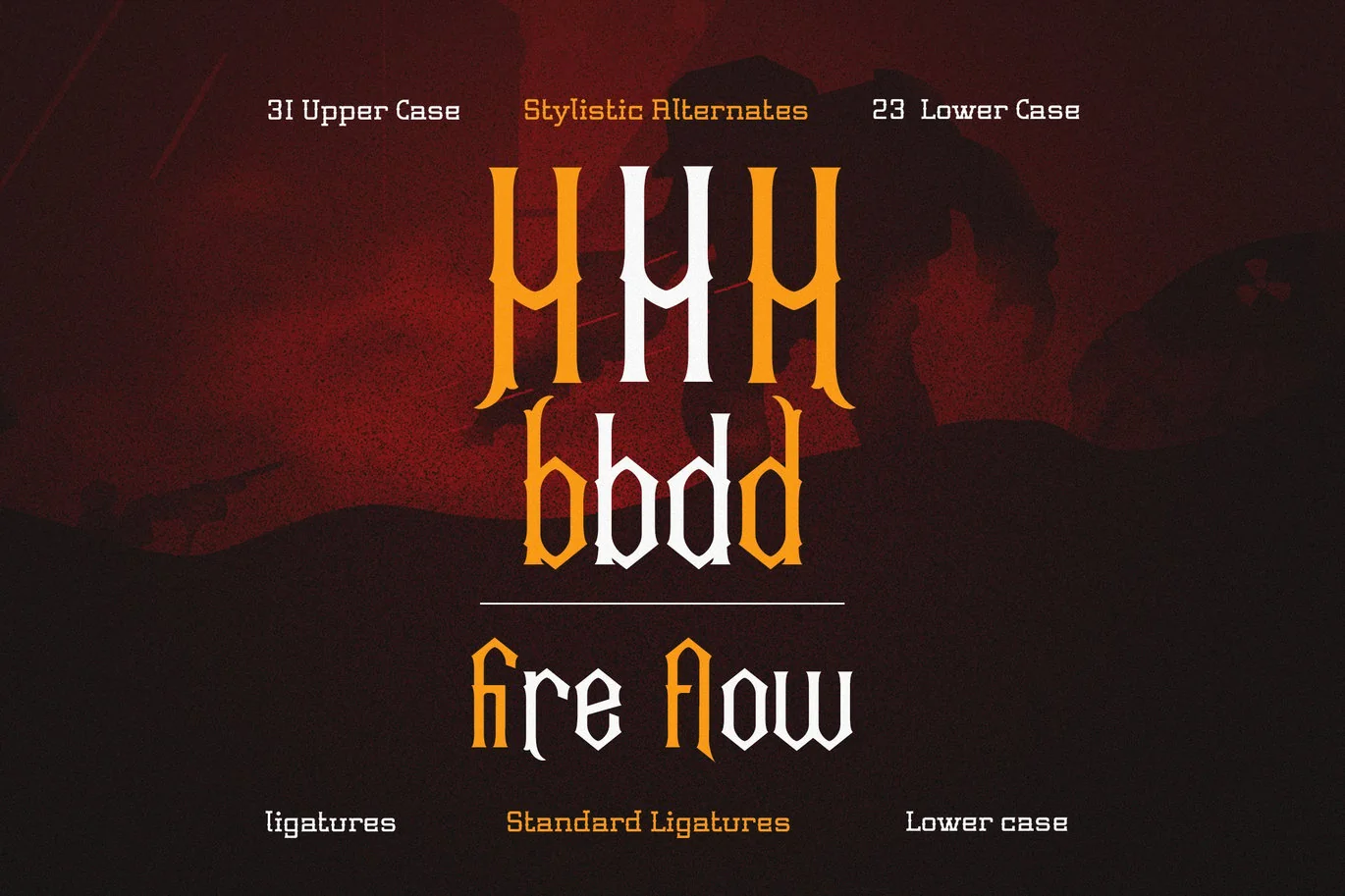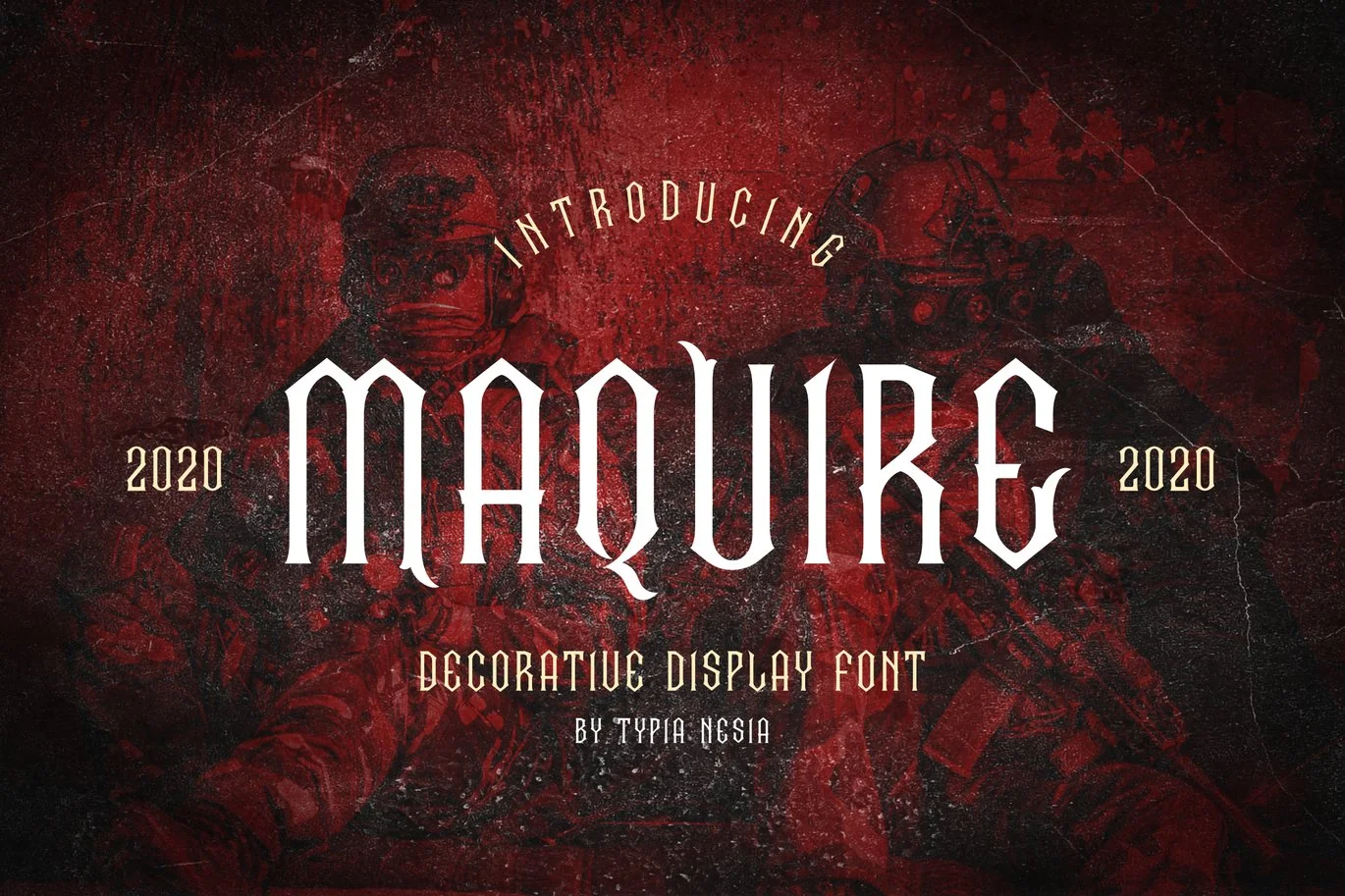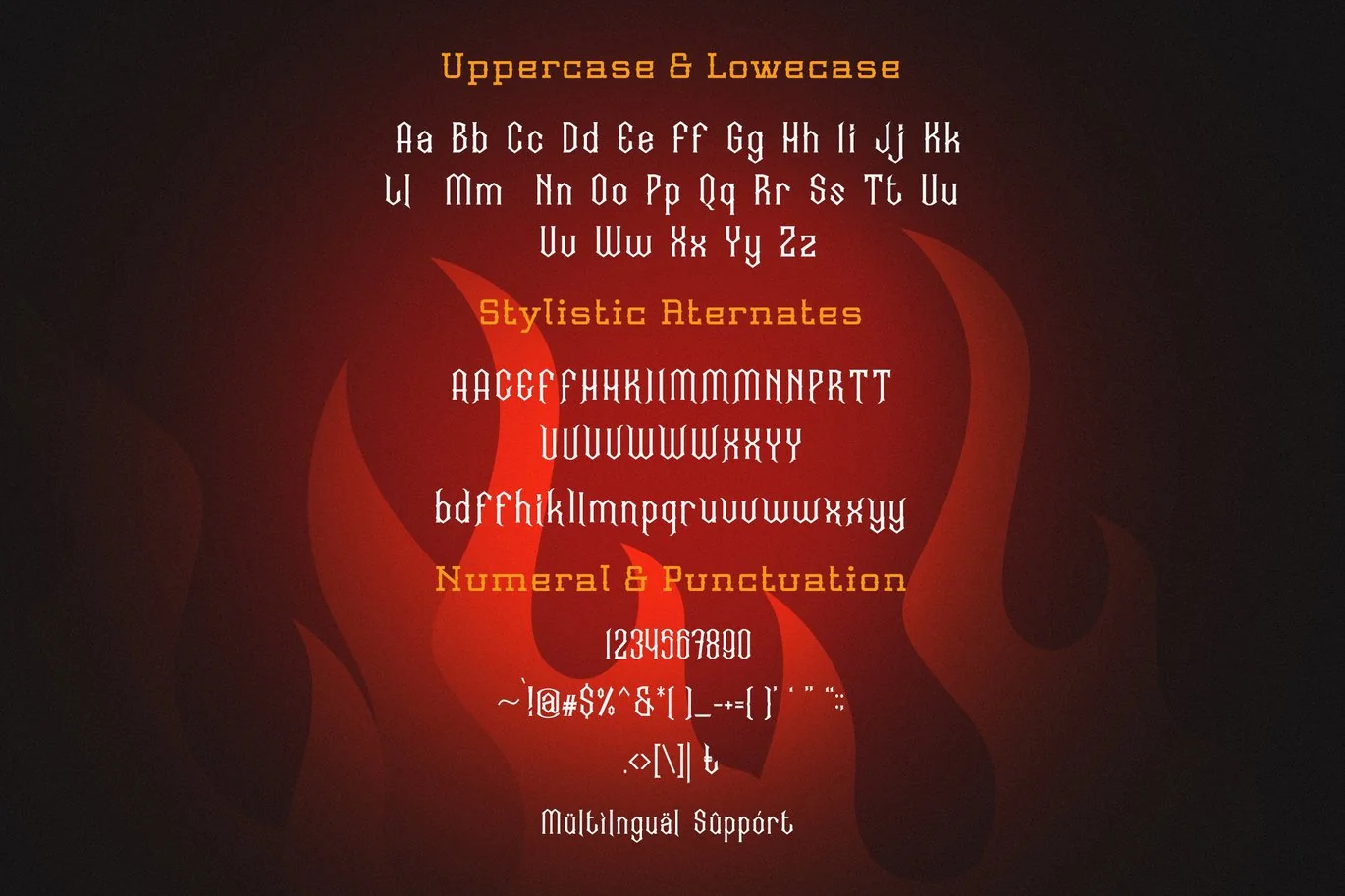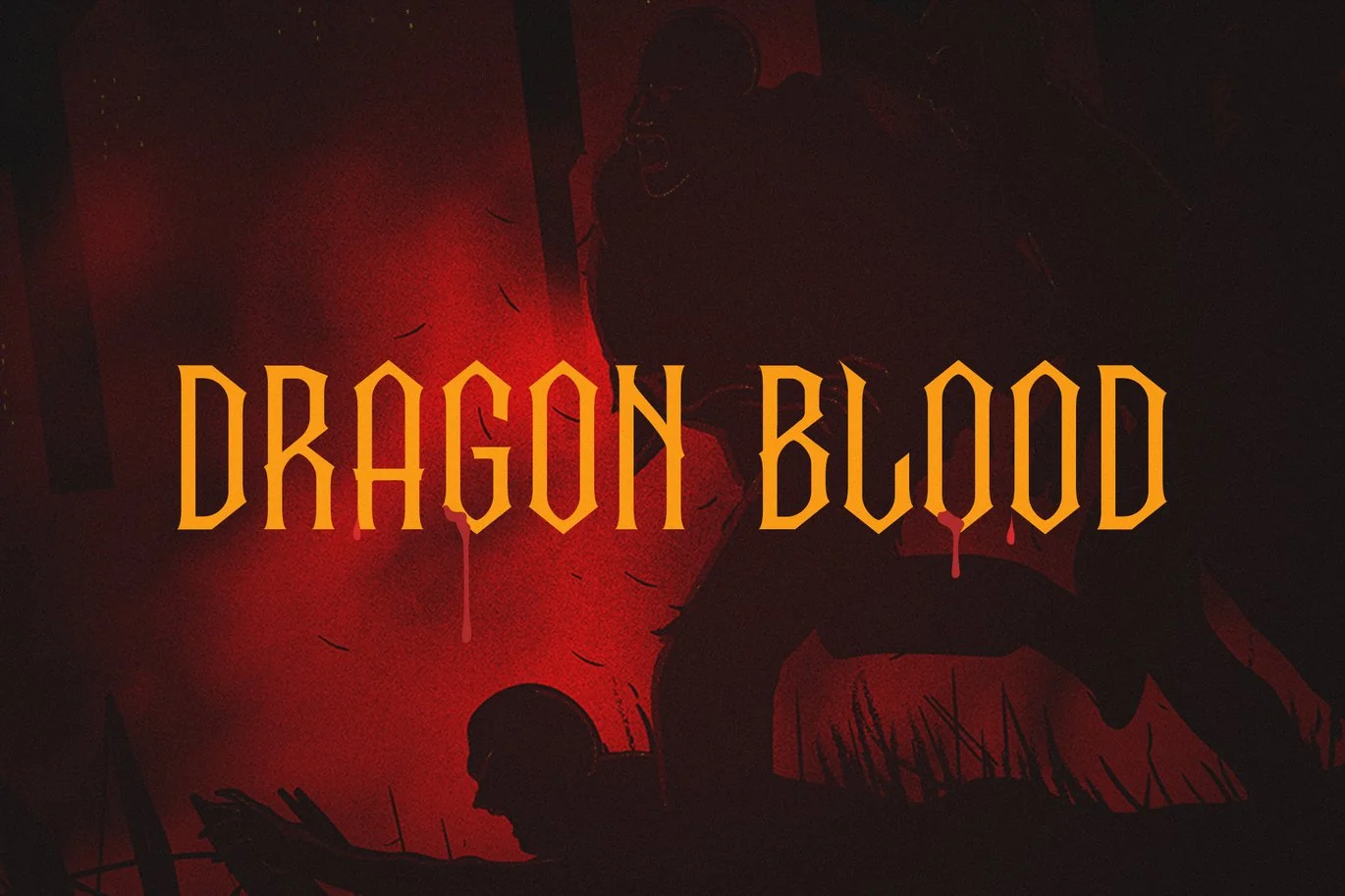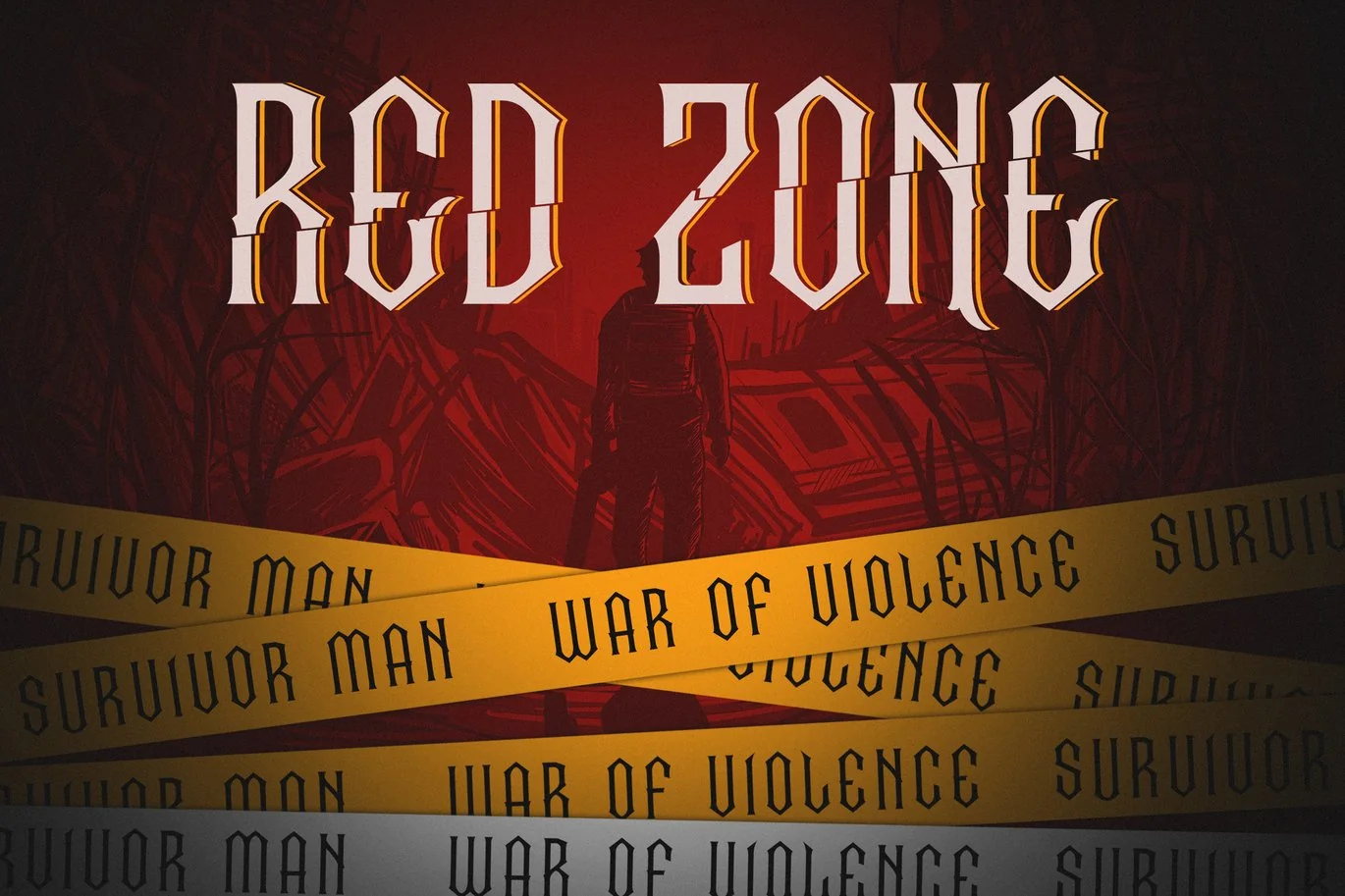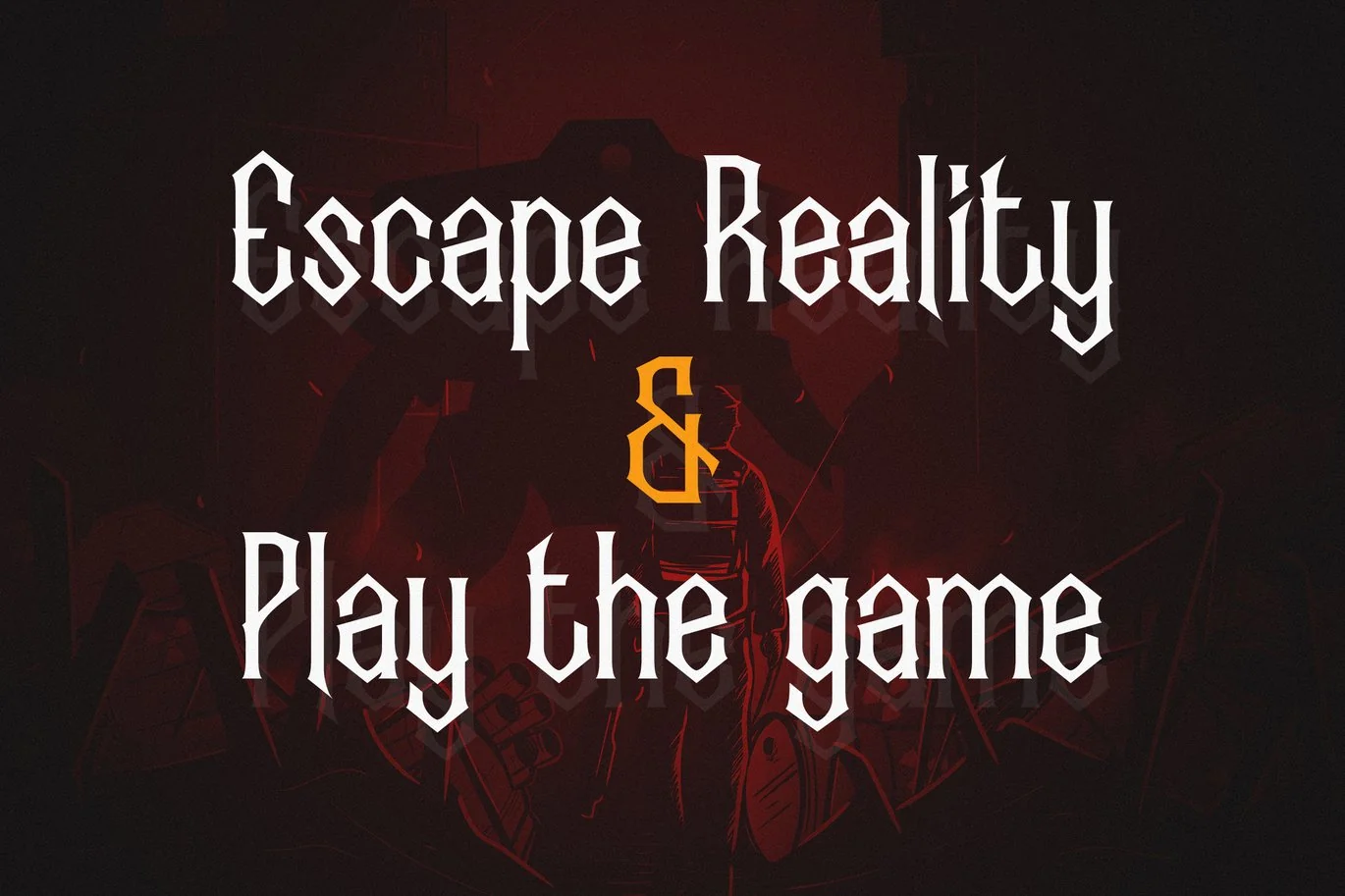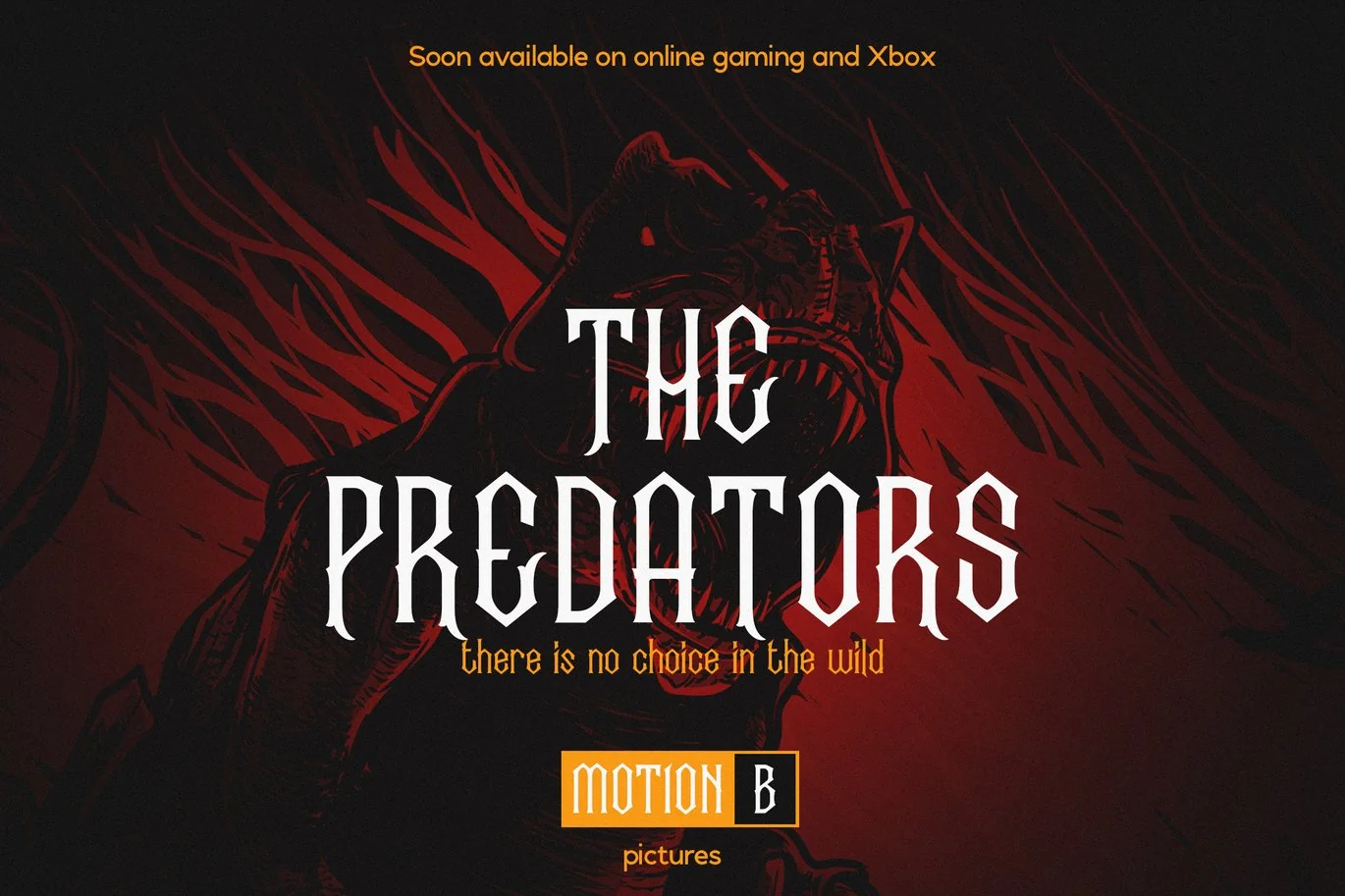
Maquire Decorative Font
Maquire Decorative – Game Display Font
Maquire font is perfect for your up coming projects. Such as logo branding, game, fantasy novel, movie, editorial design, stationery design, sport design, blog design, modern advertising design, card invitation, art quote, home decor, book/cover title, special events and any more.